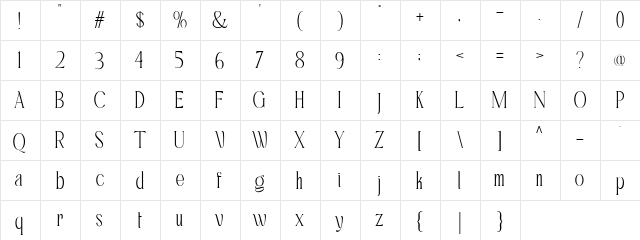
Hacky Demo Light
| Foundry | Suandana I Pande Made |
| Designer | Suandana I Pande Made |
Design Context for Hacky Demo Typeface
Hacky Demo is a composed and adaptable typeface that performs quietly and consistently across a wide range of design contexts. The delicate stroke weight brings airiness and refinement to layouts.